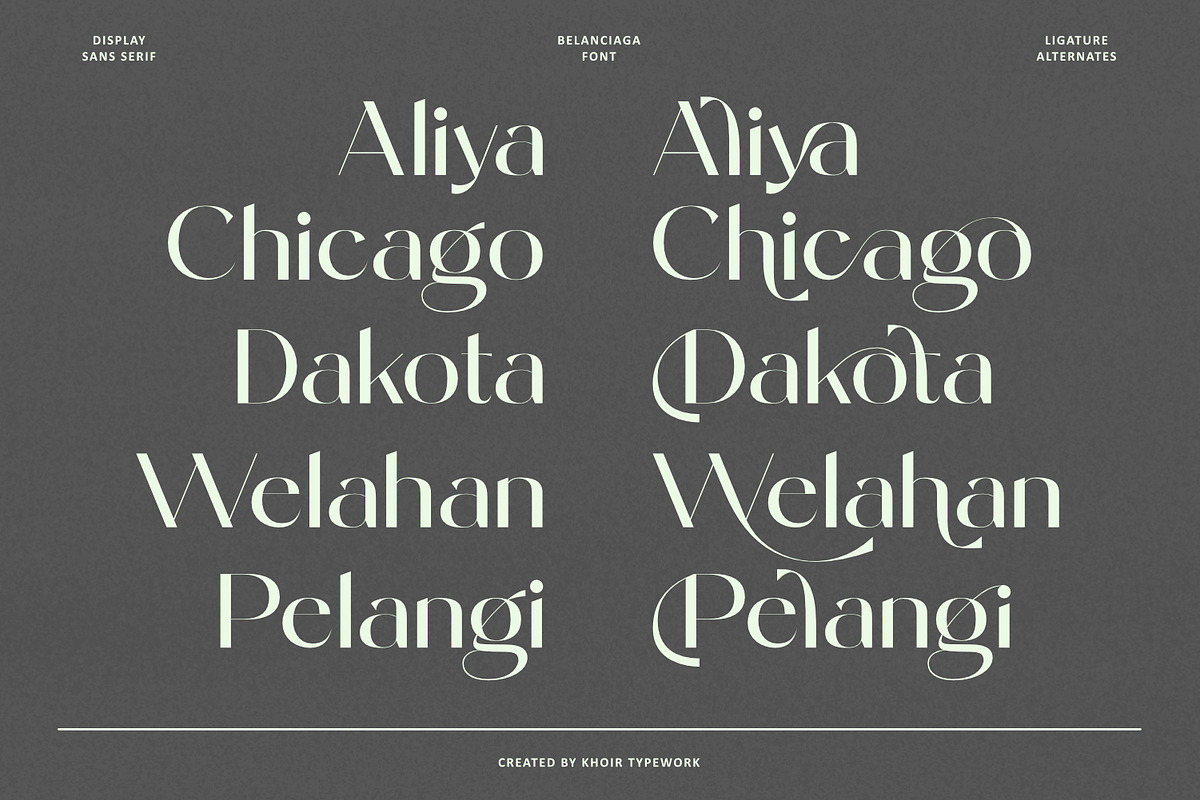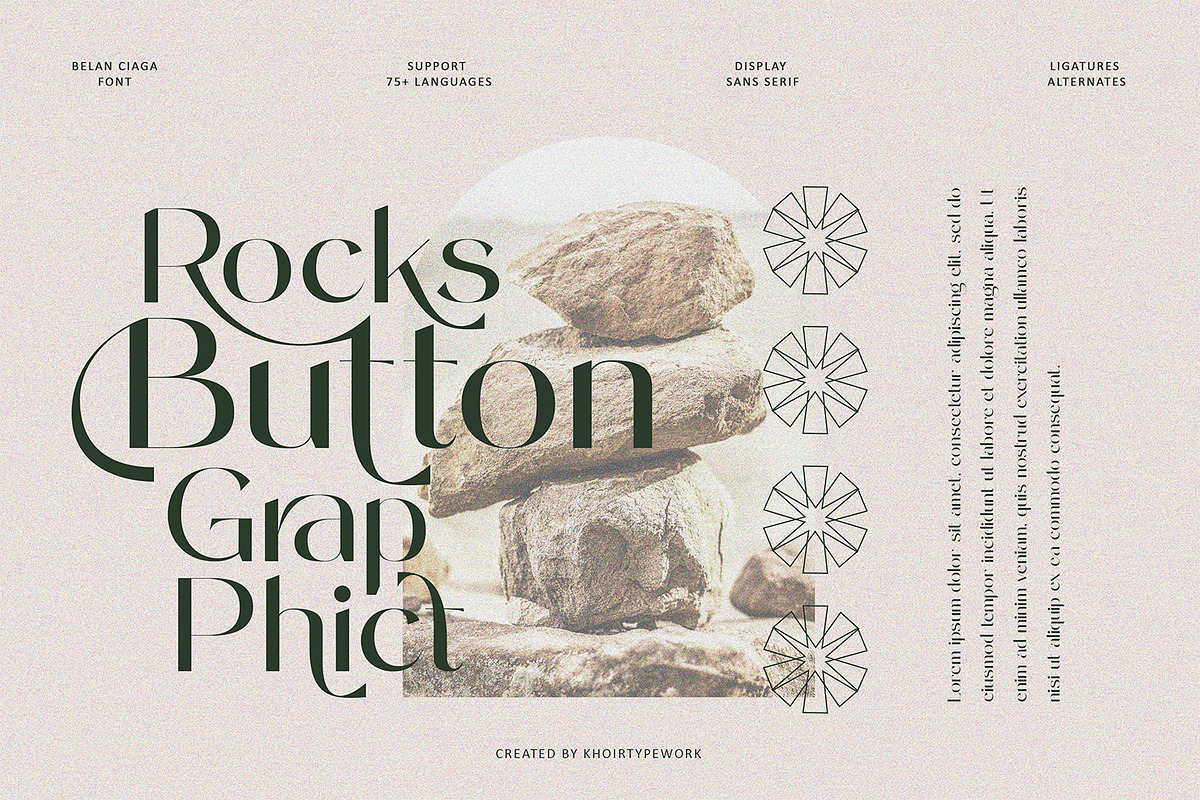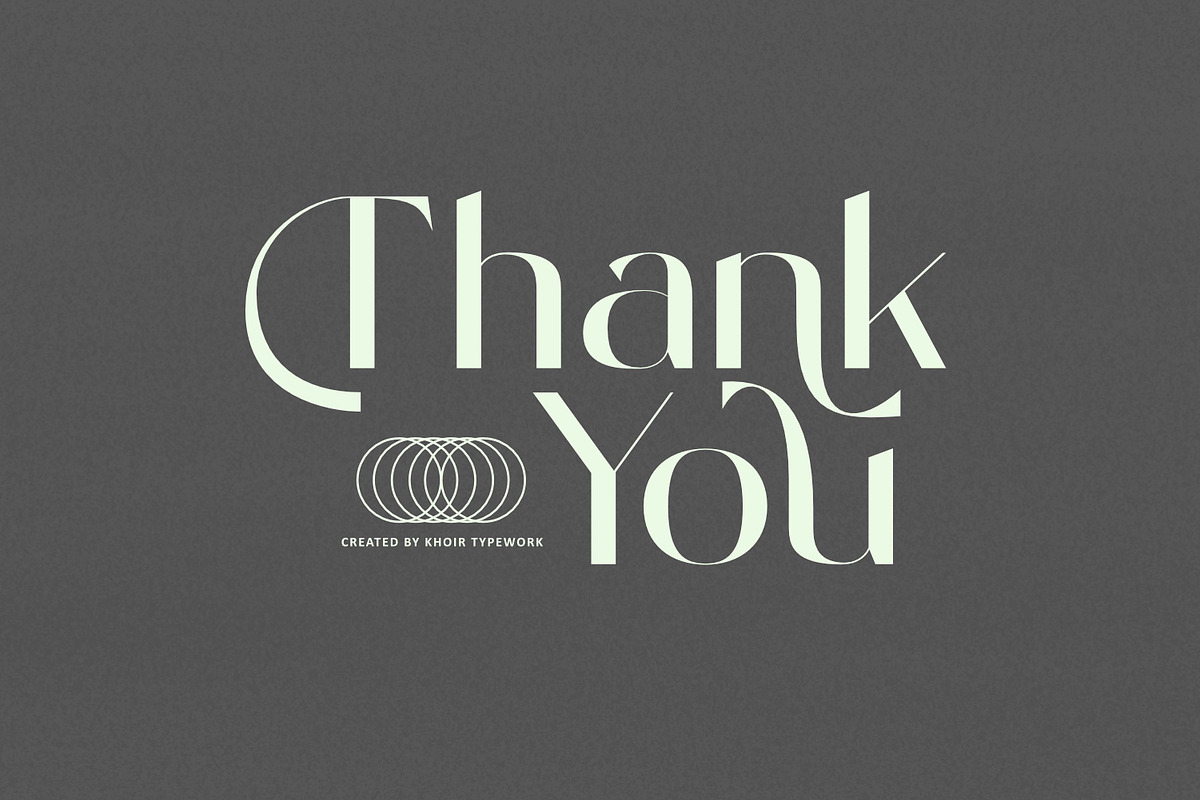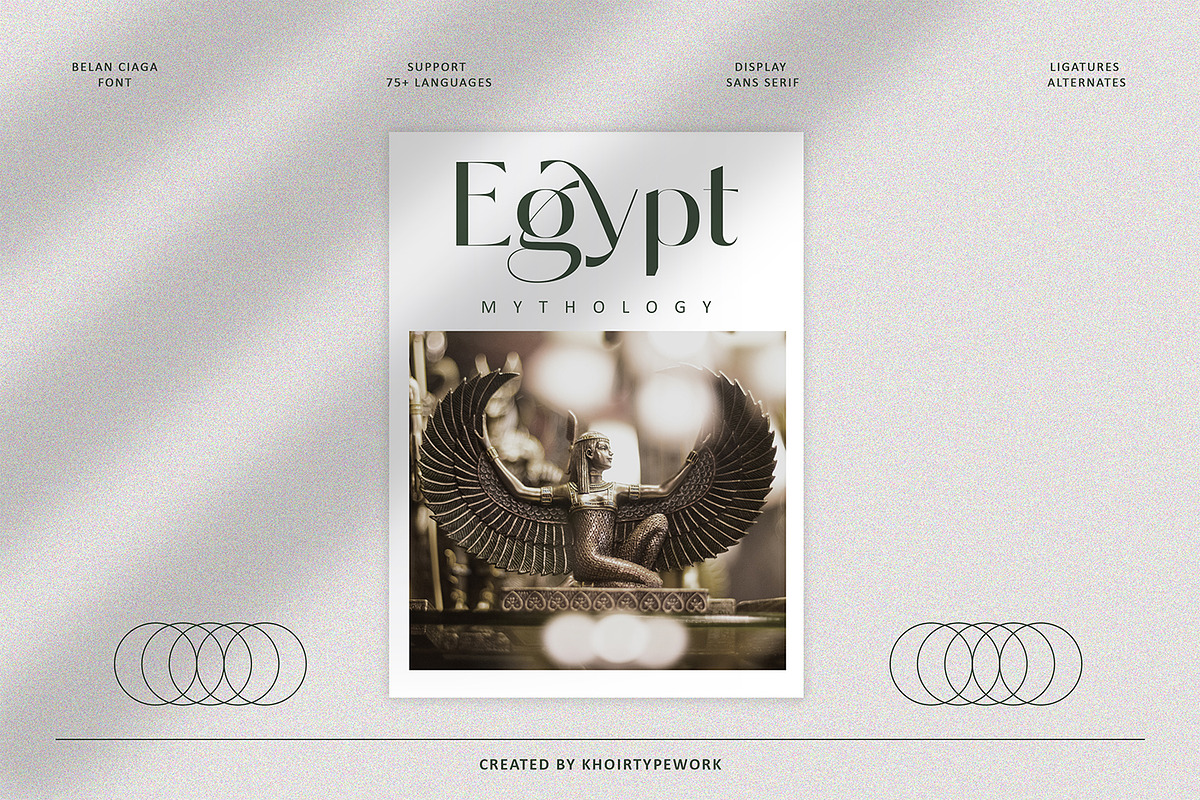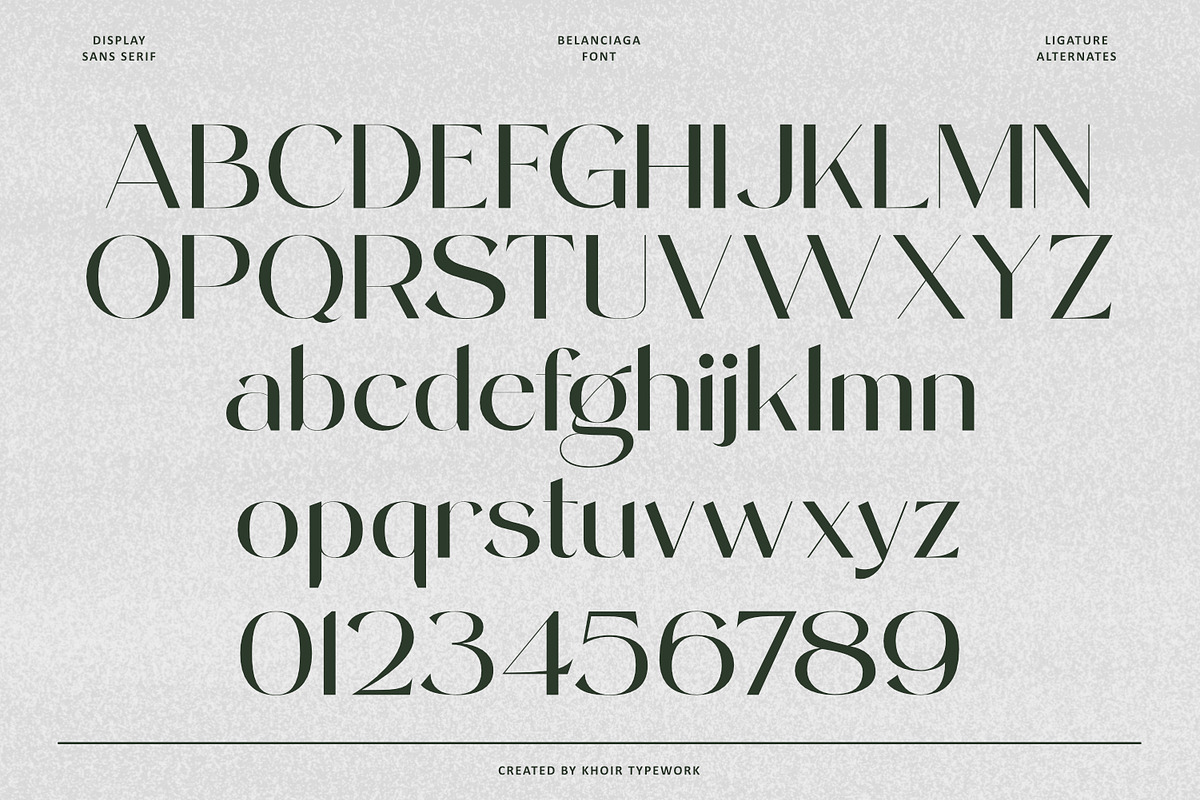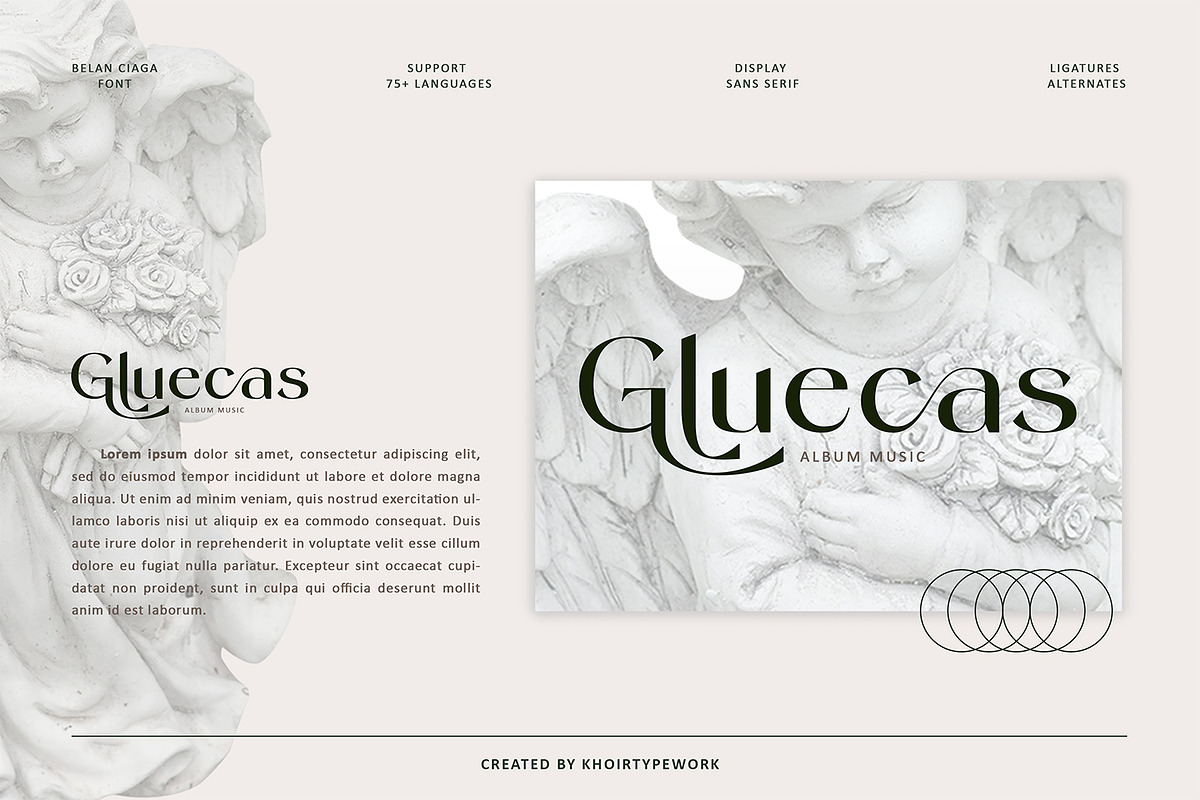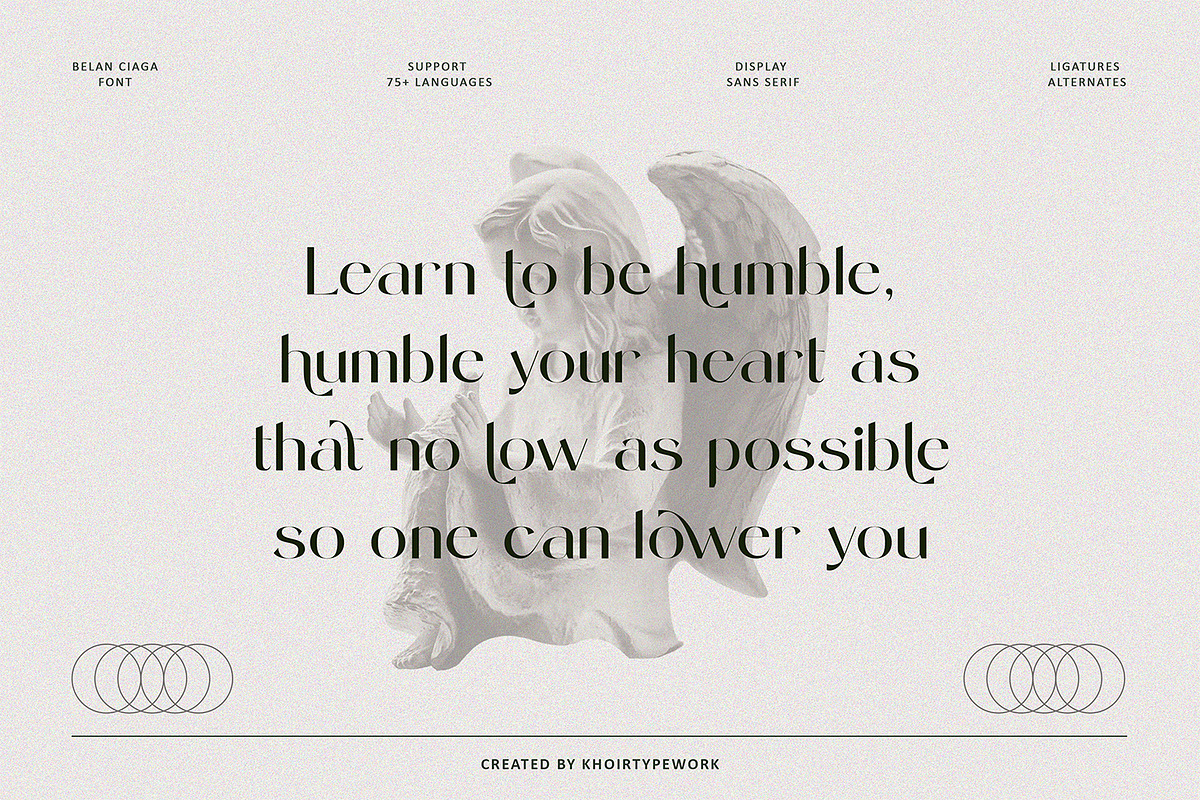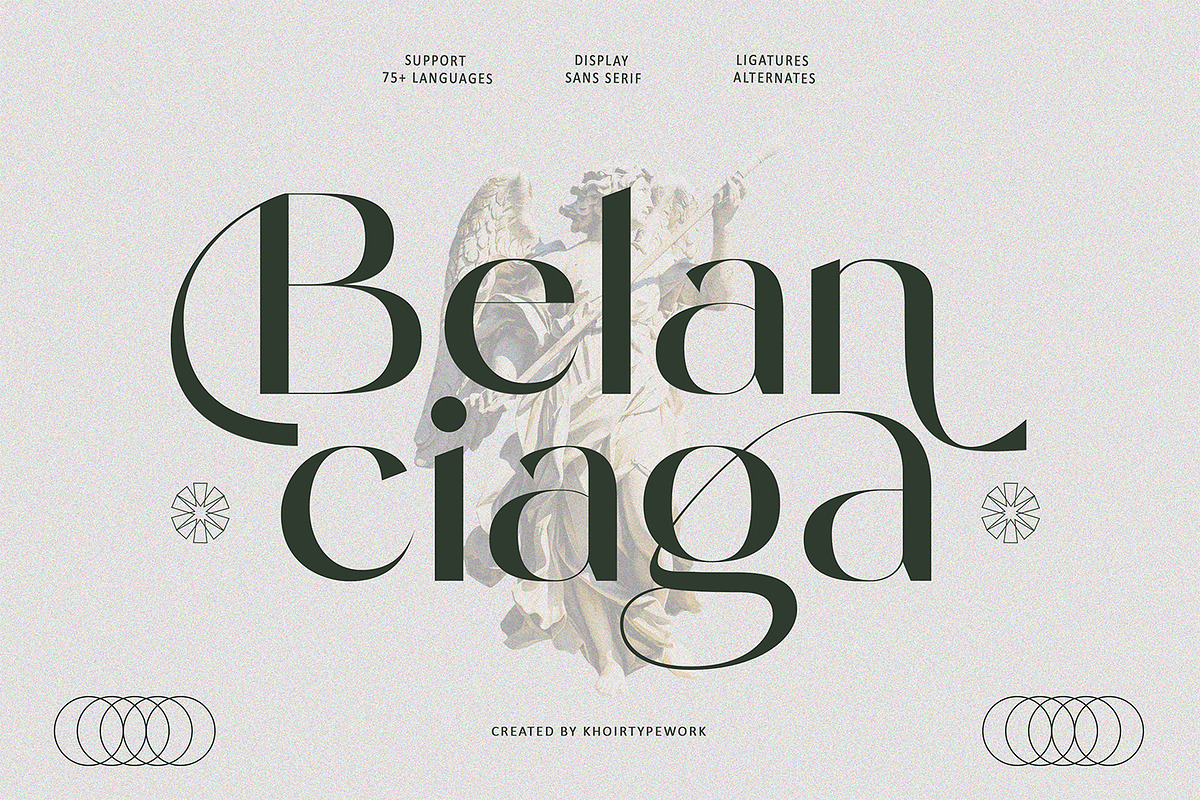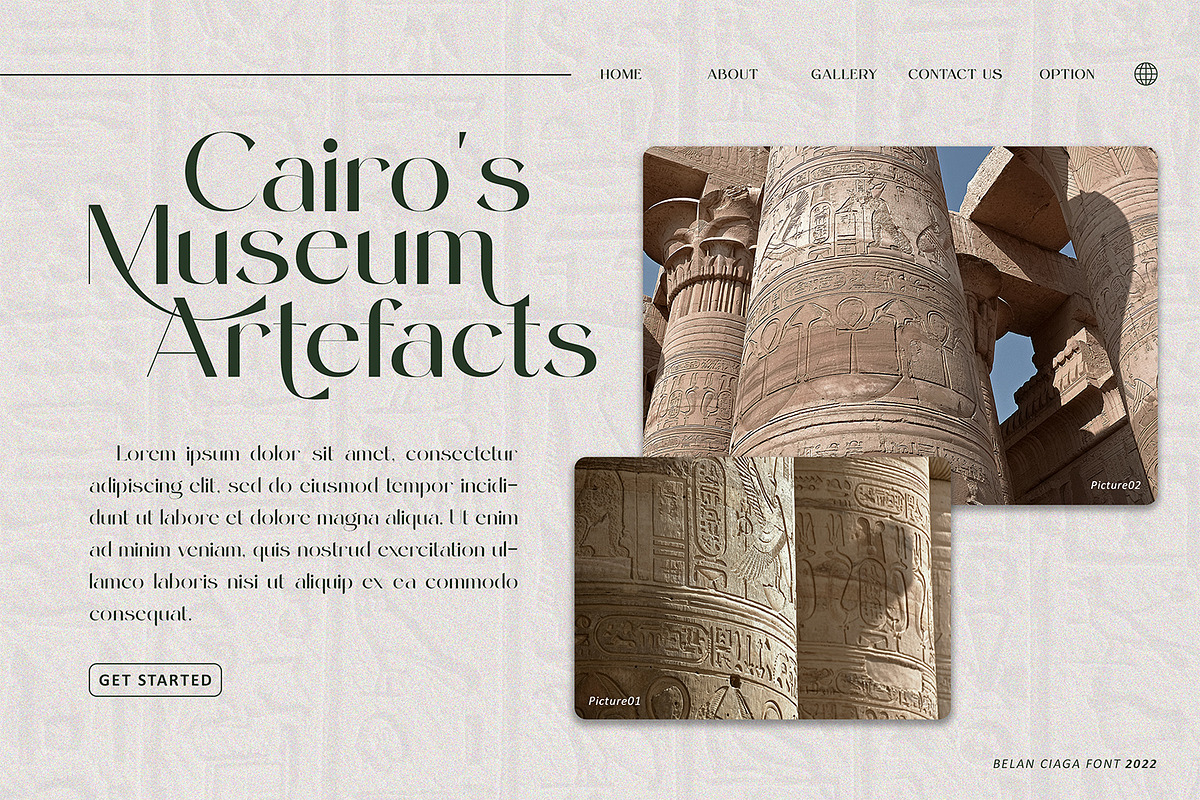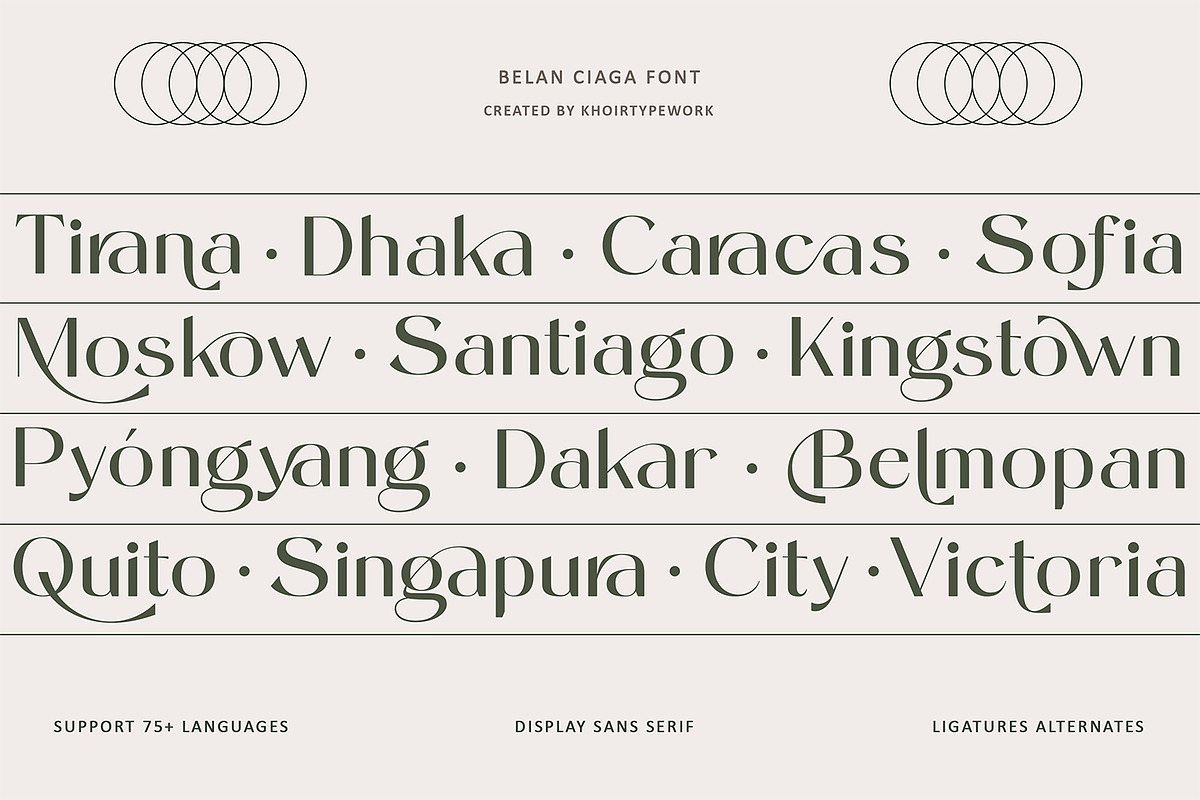
Belanciaga - Modern Sans Serif
Belanciaga - Sans Serif font that features an exclusive feel that combines a retro feel and a modern feel so that it makes you feel calm when you see it, with various alternatives and soft ligatures that make it easy for you to explore this font into your design world
- Uppercase Characters
- Lowercase Characters
- Support 75+ Language